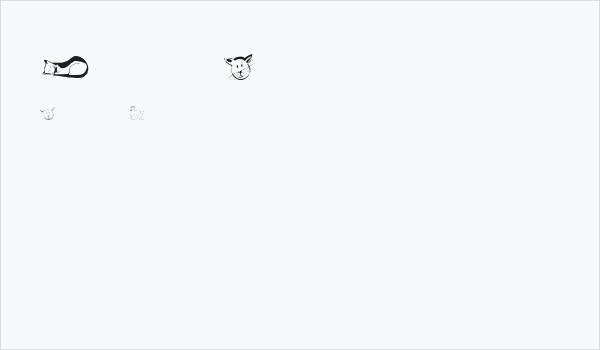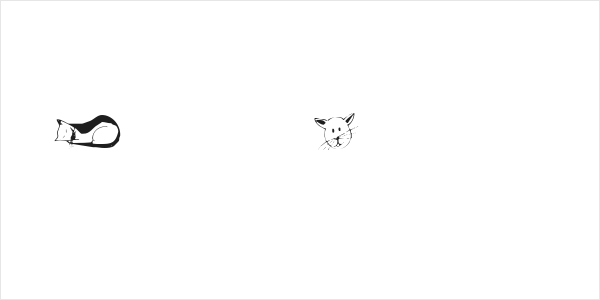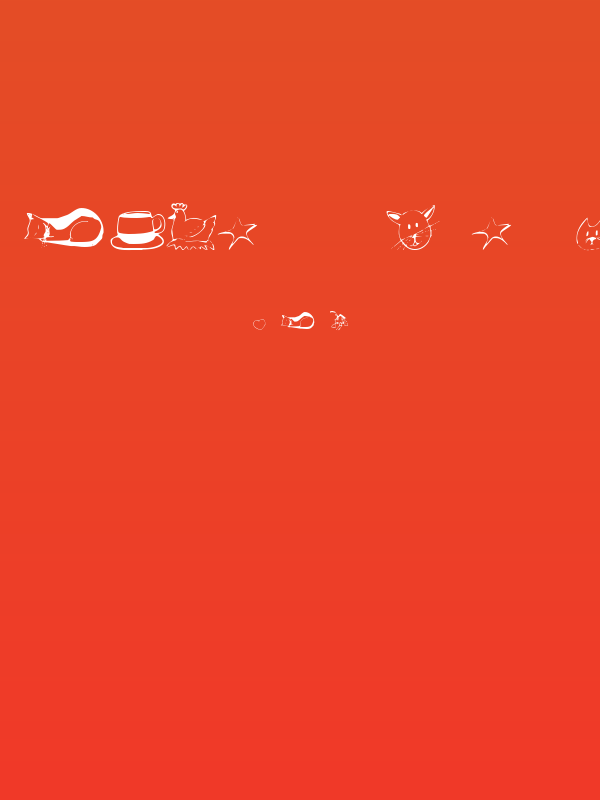
Andi's Critters Font
Andi's Critters Description
A playful collection of hand-drawn doodle illustrations featuring animals, objects, and whimsical shapes with a casual, sketch-like quality and minimal line work.
Overall StylePlayful, Whimsical, Hand-drawn
Use CaseDecorative elements, Illustrations, Themed graphics
Proposed ProjectsChildren's books, educational materials, greeting cards, playful branding, scrapbooking, stickers.